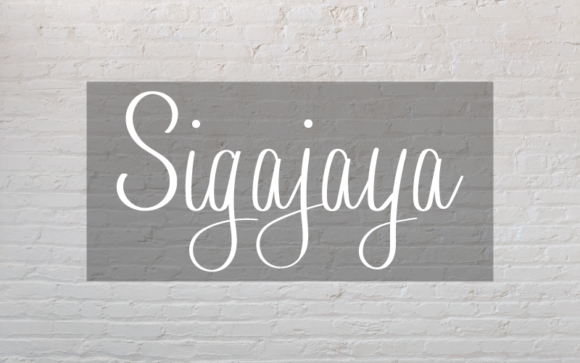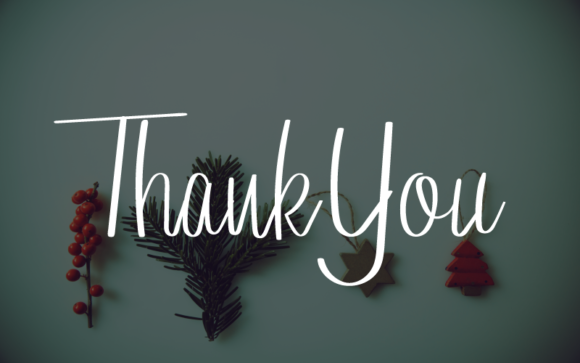
Sigajaya Font
About Sigajaya Font
Sigajaya is an elegant and gorgeous handwritten font. It maintains its classy calligraphic influences while feeling contemporary and fresh. Fall in love with this font and bring your projects to the highest levels!